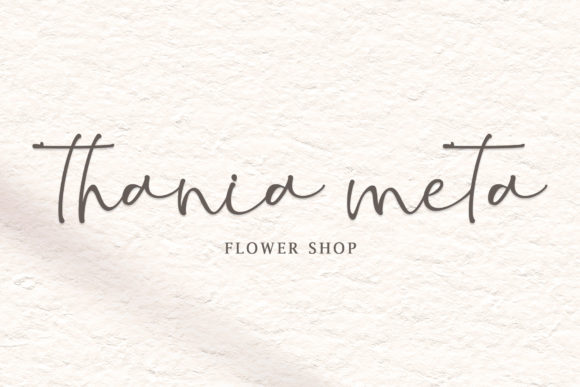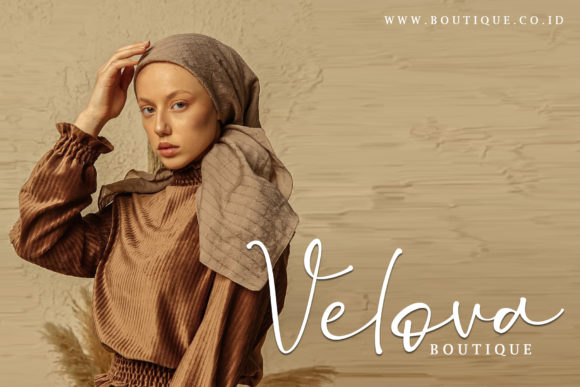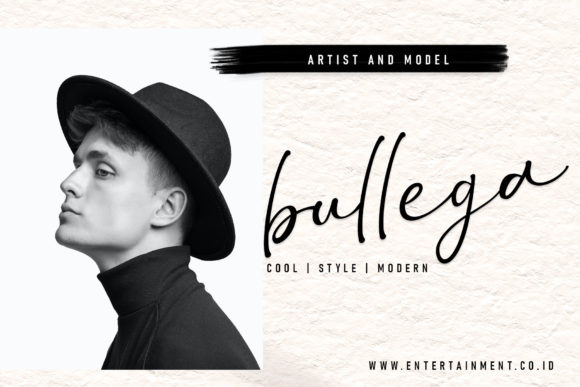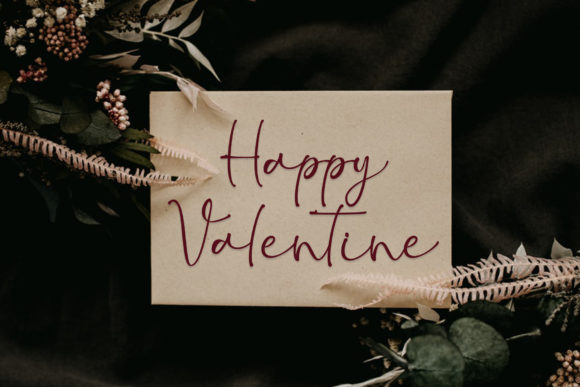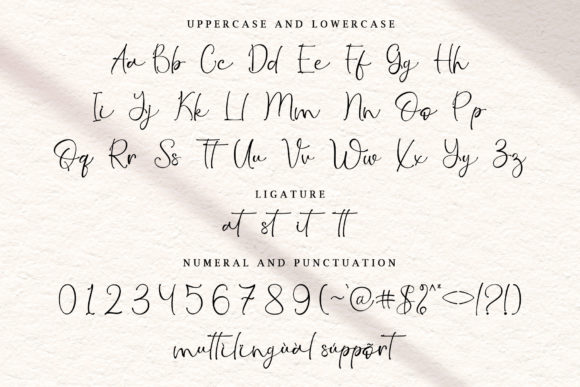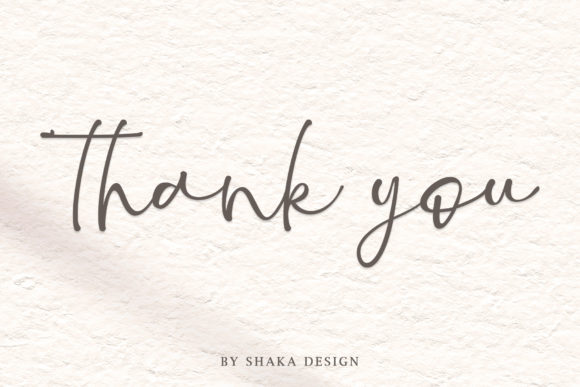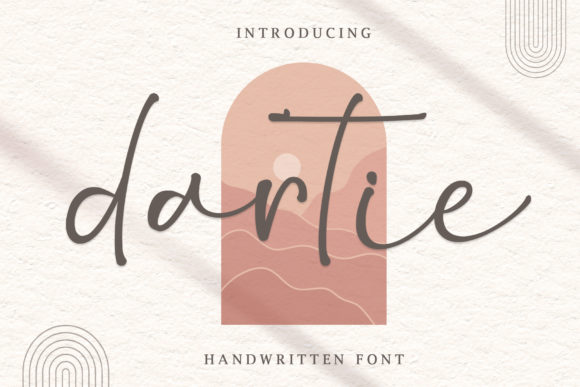
Dartie Font: The Playful Script Font to Elevate Your Creative Projects
Are you tired of using the same old fonts in your creative projects? Look no further than Dartie Font, a lovely script font that is sure to add a touch of whimsy and charm to any design. With its charming, playful characters that seem to dance along the baseline, Dartie Font is the perfect addition to your font collection.
What Makes Dartie Font So Special?
Dartie Font is a unique and eye-catching script font that is sure to make your creative projects stand out. Its playful characters are designed to evoke a sense of joy and movement, making it perfect for designs that require a touch of personality and flair. Whether you’re working on a branding project, a craft project, or simply looking for a new font to add to your collection, Dartie Font is a great choice.
Features of Dartie Font
• Charming, playful characters: Dartie Font features characters that seem to dance along the baseline, adding a touch of whimsy and charm to any design.
• Unique and eye-catching: With its playful and unique design, Dartie Font is sure to make your creative projects stand out from the crowd.
• Perfect for creative projects: Whether you’re working on a branding project, a craft project, or simply looking for a new font to add to your collection, Dartie Font is a great choice.
• Easily readable: Despite its playful design, Dartie Font is easily readable, making it perfect for use in a variety of creative projects.
Uses for Dartie Font
Dartie Font is a versatile font that can be used in a variety of creative projects, including:
• Branding and logo design: Add a touch of personality and whimsy to your brand with Dartie Font.
• Crafting and DIY projects: Use Dartie Font to add a personal touch to your crafting and DIY projects, such as handmade cards, gift tags, and more.
• Stationery and invitations: Make your stationery and invitations stand out with Dartie Font.
• Social media graphics: Use Dartie Font to add a touch of personality to your social media graphics.
Tips for Using Dartie Font
Here are a few tips for using Dartie Font in your creative projects:
• Use it sparingly: While Dartie Font is a beautiful font, it can be overwhelming if used too much. Use it sparingly to add a touch of personality to your design.
• Pair it with a simple font: Pair Dartie Font with a simple font to create a beautiful contrast in your design.
• Experiment with colors: Dartie Font looks great in a variety of colors, so don’t be afraid to experiment and find the perfect color for your design.
Dartie Font is a lovely script font that is sure to add a touch of whimsy and charm to any creative project. With its charming, playful characters and easily readable design, Dartie Font is perfect for a variety of creative projects, from branding and logo design to crafting and DIY projects. So why not give Dartie Font a try and see how it can elevate your creative projects?
Whether you’re a designer, crafter, or simply someone looking for a new font to add to your collection, Dartie Font is a great choice. Its unique and eye-catching design is sure to make your creative projects stand out, and its easily readable design makes it perfect for use in a variety of applications.